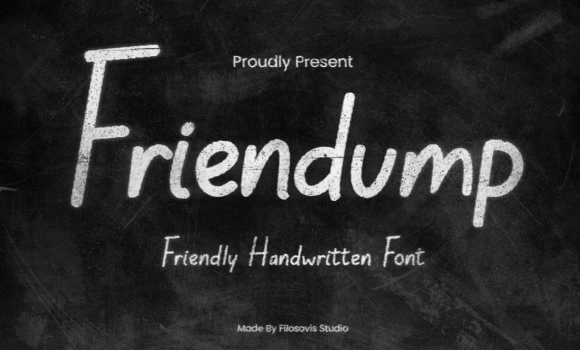
friendump
Friendump Font – Free Download Introduction to Friendump Font Friendump is a handwritten font that adds a playful twist to any design. 📸 Preview Gallery 4 images 📌 Product Name Friendump Font 👤 Author filosovis.co 📂 Category Explore ⬇️ Download